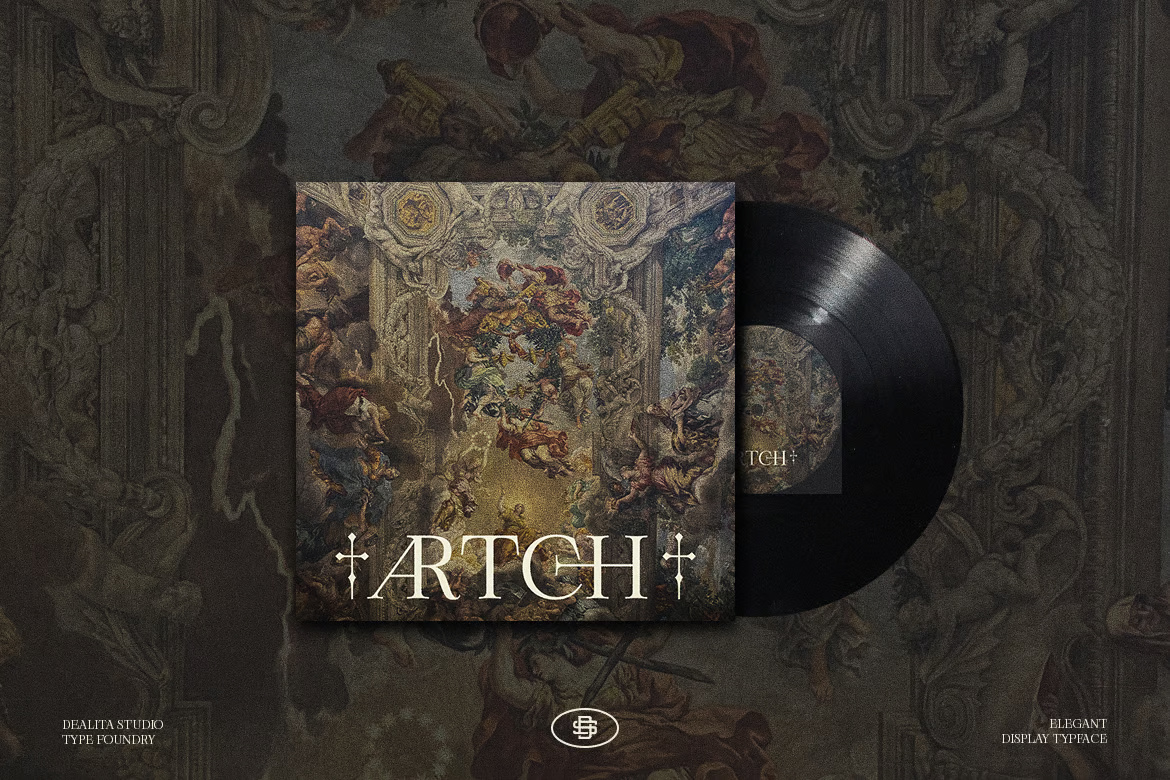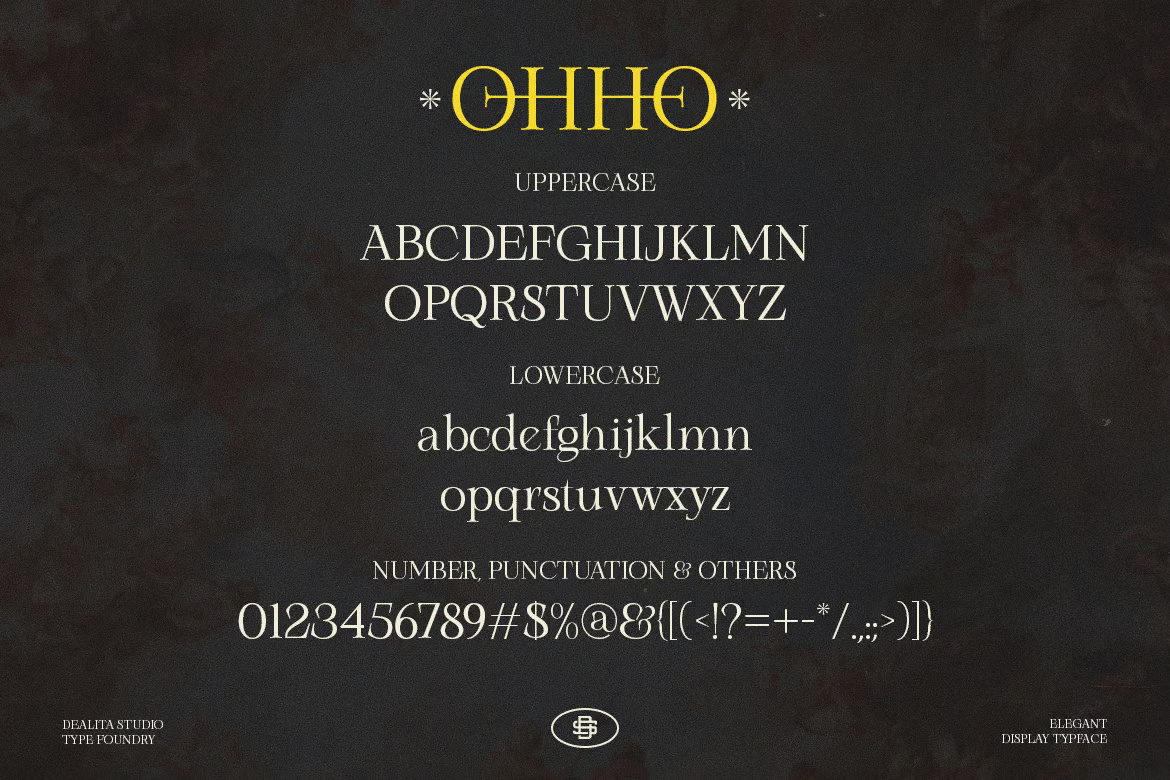
OHHO Modern Serif
OHHO is a fashionable and modern elegant serif font, featuring stylish extras that give it a touch of sophistication and allure. Its clean lines and luxurious design make it ideal for use in logos, invitations, labels, magazines, books, greeting and wedding cards, packaging, fashion, makeup, stationery, novels, and any type of advertising purpose.